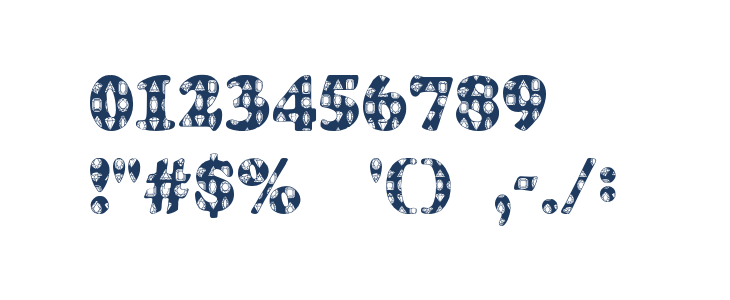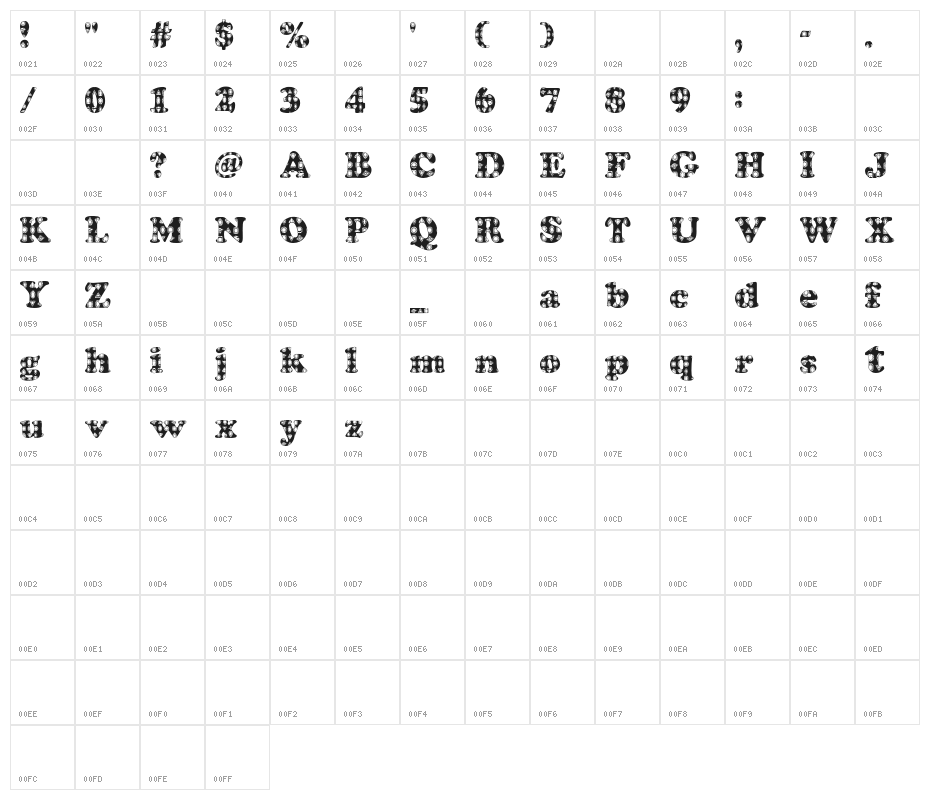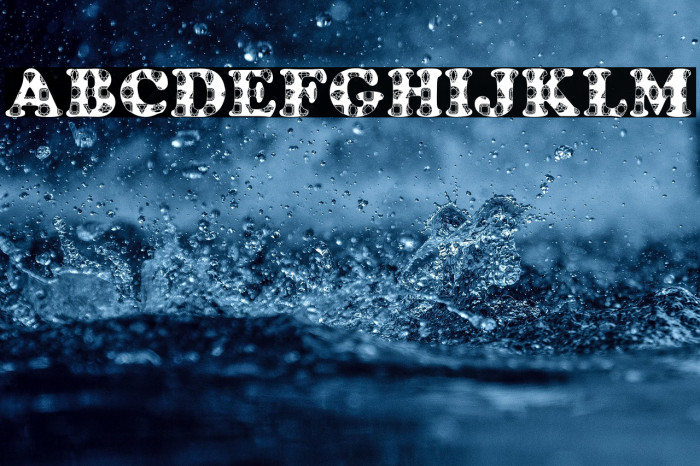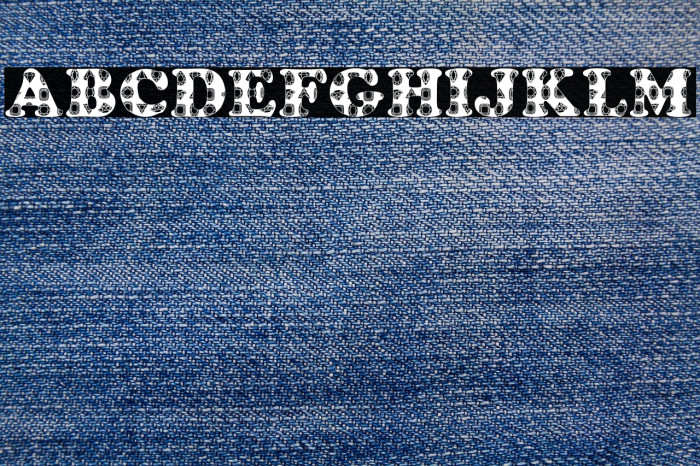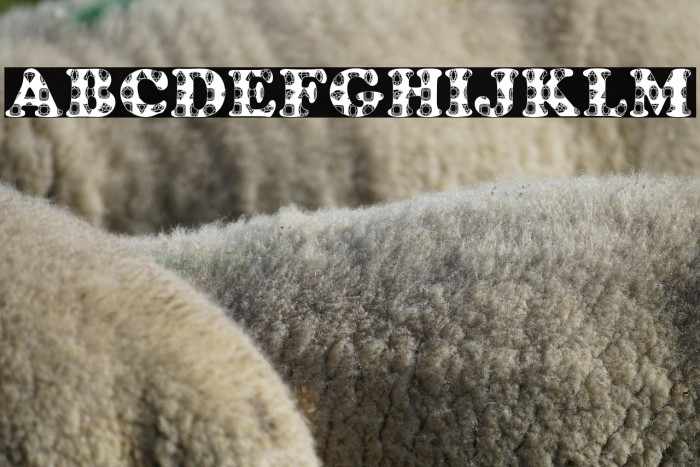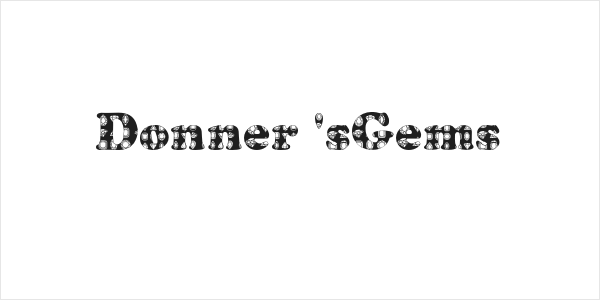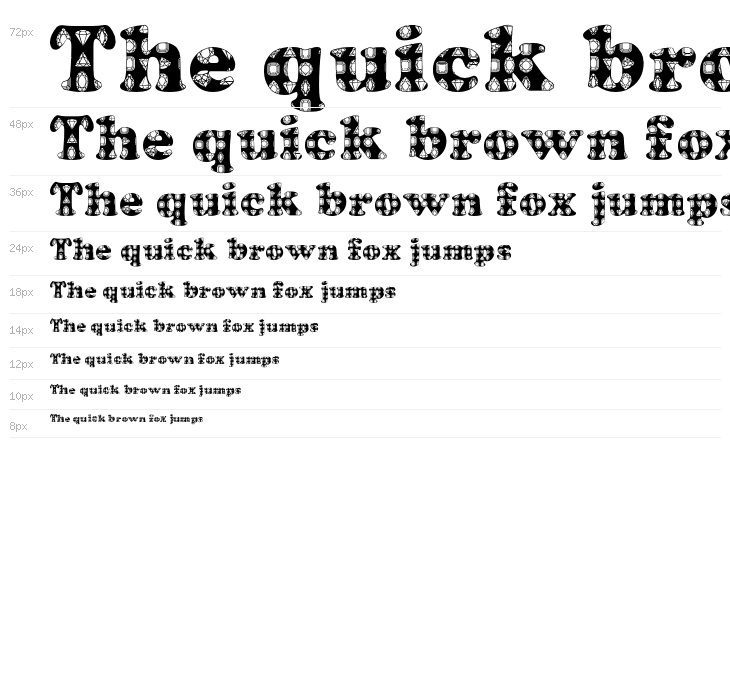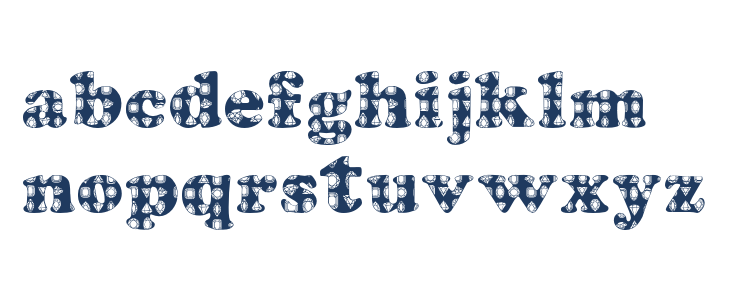
Donner'sGems Font
Donner'sGems Description
This font features a bold and decorative style with a unique gemstone pattern filling each character. The letters are thick and rounded, providing a playful and eye-catching appearance. Each character is adorned with intricate diamond-like shapes, giving it a luxurious and ornate feel. The uppercase and lowercase letters maintain a consistent design, ensuring readability while still offering a distinct visual appeal. The numbers and special characters follow the same decorative theme, making them suitable for creative and artistic projects. This font is ideal for designs that require a touch of elegance and glamour, such as invitations, posters, or branding materials.
| Proposed Projects | Ideal for invitations, posters, branding materials, and any project requiring a luxurious and ornate touch. |